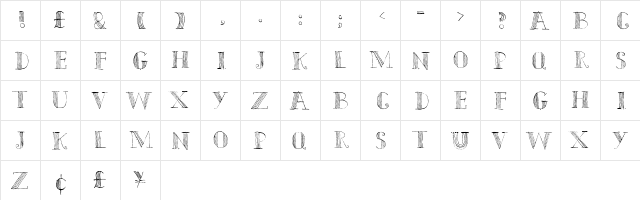
Ursula Capitals Regular
Design Context for Ursula Capitals Typeface
Ursula Capitals is a composed and adaptable typeface that performs quietly and consistently across a wide range of design contexts.